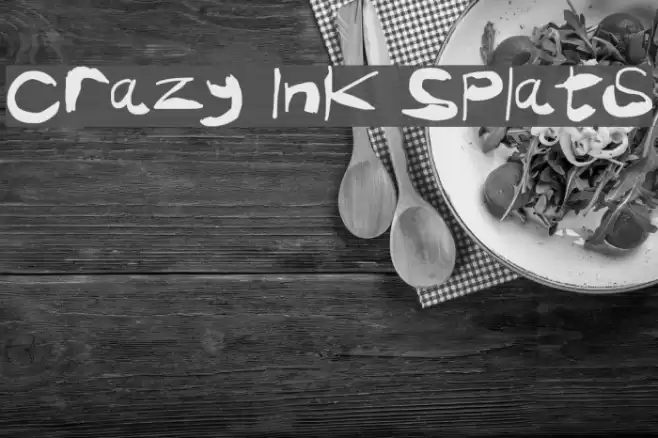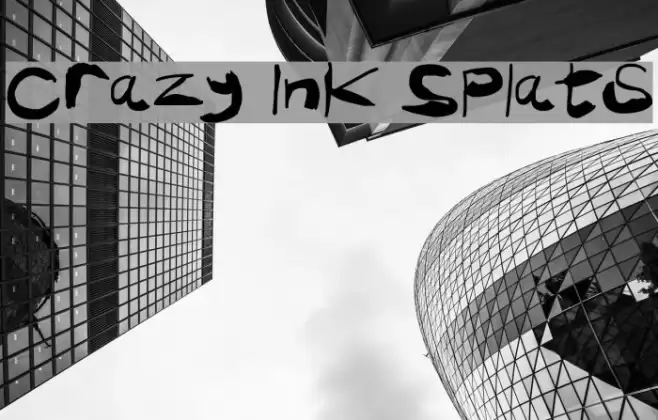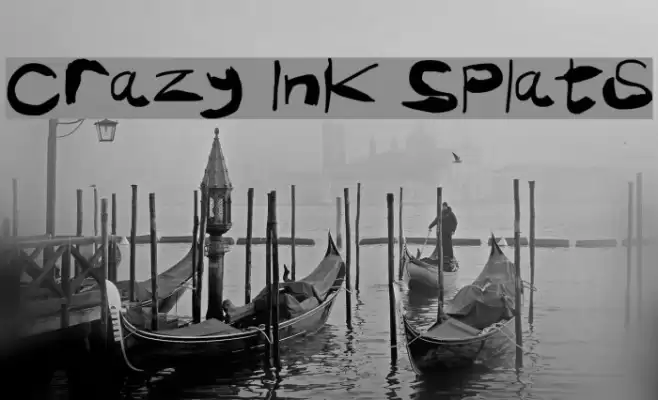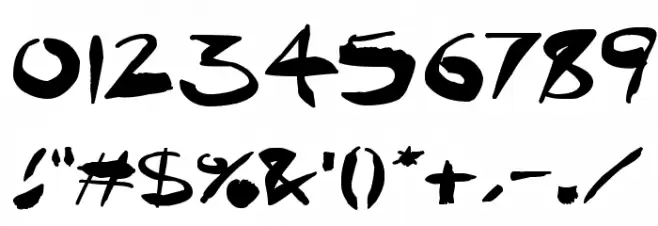
Crazy Ink Splats Font
Crazy Ink Splats Description
This font features a bold and dynamic style with an ink-splattered appearance, giving it a chaotic yet artistic look. The characters are irregular and vary in thickness, mimicking the effect of ink splatters on paper. The uppercase and lowercase letters maintain a consistent theme, with jagged edges and uneven strokes that add to the font's unique personality. Numbers and special characters follow the same design, ensuring a cohesive look across all elements. This font is ideal for projects that require a bold statement or an artistic touch.
A bold, ink-splattered font with a chaotic and artistic style from Uncategorized fonts.
- Proposed Projects: Ideal for album covers, posters, graffiti art, and creative branding projects.
- Overall Style: Artistic, Chaotic
- Use Case: Headlines, Logos, Artistic projects